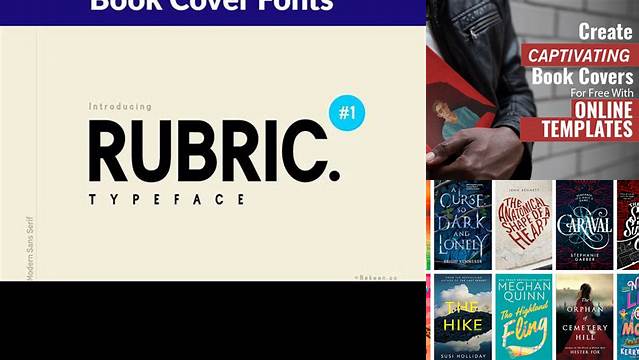
Best Fonts For Captivating Book Cover Designs
Hey everyone! Let's dive into the awesome world of book cover design, specifically, the crucial role of fonts. Choosing the right fonts can seriously make or break your book's first impression. Think about it: your cover is the handshake, the first thing potential readers see. And just like a firm handshake exudes confidence, the right font combo can scream 'read me!' In this article, we're gonna explore the best fonts to make your book cover stand out and attract readers. We'll look at different styles, from classic serifs to bold sans-serifs, and even some quirky options to fit any genre. We'll also discuss how to pair them effectively to create a visually appealing and memorable cover that grabs attention, driving readers to pick up your book! Trust me, getting the fonts right is an art form, and we're here to make you a font master. So, buckle up, and let's get started!
H2: Choosing the Right Font Styles: A Guide for Book Covers
Alright, guys, let's get down to the nitty-gritty of picking the perfect font styles for your book cover. This is where the magic happens! The first thing you need to do is understand the different font families. You have serif fonts, which have those little strokes or 'serifs' at the ends of the letters, and sans-serif fonts, which are clean and don't have those strokes. Then there are script fonts, which mimic handwriting, and display fonts, which are typically bolder and more stylized, perfect for grabbing attention. Each style evokes a different feeling and is suitable for various genres. For instance, a classic thriller might benefit from a strong serif font, while a contemporary romance might call for a more elegant script. Sci-fi and fantasy often use bolder sans-serif or unique display fonts. When selecting, consider your genre's established visual conventions. Research the covers of bestsellers in your category to understand what works. What fonts are commonly used? What message are they trying to convey? Don't be afraid to step outside the box, but always make sure your font choices align with your book's content and target audience. It is also important to take the time to test different font combinations to see how they look together. Some fonts complement each other, while others clash, so careful selection is key. Be sure to examine the spacing between letters (kerning) and the lines (leading). The layout, too, is very essential in choosing fonts because a cluttered layout can detract from an otherwise beautiful font. Think about the hierarchy of information on your cover. The title should be the most prominent element, followed by the author's name and any secondary information. Use size, weight, and color to create this visual hierarchy. Finally, guys, the goal is to find fonts that perfectly capture the essence of your book! This includes choosing a good font style, so that it can represent your content well.
H3: Serif Fonts: Timeless Elegance and Authority
Let's talk about serif fonts. These are the OGs of the font world, and they're still incredibly popular on book covers. You've probably seen them everywhere, from classic novels to academic textbooks. The little 'feet' or strokes at the end of the letters give serif fonts a sense of history, tradition, and, depending on the specific design, authority. Think of fonts like Times New Roman, Garamond, and Bookman Old Style. They're the reliable, trustworthy choices. Why choose a serif for your cover? Well, for genres like historical fiction, literary fiction, and serious non-fiction, a serif can lend instant credibility and sophistication. They can also give the impression of a 'classic' or 'timeless' story. The key is selecting the right serif. Some are more ornate and elegant, while others are clean and modern. Consider the mood you're trying to create. A traditional romance, for example, might use a flowing serif, while a hard-hitting biography might use a more robust one. Make sure the font is readable, even at a small size. Remember, your cover needs to look good when it's shrunk down for online stores. Be mindful of the font's weight (boldness) and size to ensure that it's easily seen from a distance. Avoid using too many different serif fonts on your cover, as this can create a cluttered and confusing appearance. If you're using a serif font for the title, consider pairing it with a clean sans-serif for your author's name or a subtitle for a modern feel. Experiment with different combinations to see what works best for your book and font style! Using a serif font provides credibility. Your goal should always be to create a good impression!
H3: Sans-Serif Fonts: Modernity and Versatility
Next up are sans-serif fonts! These are the cool kids on the block, known for their clean, modern look. Sans-serif fonts lack the small strokes, making them appear sleek and contemporary. Think of fonts like Helvetica, Arial, and Futura. They’re incredibly versatile and can work well in various genres, from science fiction and thrillers to young adult and contemporary fiction. Why choose a sans-serif for your book cover? They exude a sense of clarity, simplicity, and modernity. They're easy to read, especially at smaller sizes, making them ideal for covers that need to be eye-catching on a small screen. Sans-serif fonts work perfectly for genres that want to appeal to a younger audience or convey a sense of forward-thinking. When choosing a sans-serif font, consider the specific style. Some are geometric, like Futura, which gives a strong, minimalist feel. Others, like Open Sans, are more humanist and have a softer edge. Match the font style to your book's tone and content. A sci-fi novel might benefit from a bold, futuristic sans-serif, while a contemporary novel might use a clean, elegant one. You have to consider the font's weight and size. Also, sans-serif fonts tend to be highly readable, even in a condensed version. A clean layout is key when using a sans-serif font. You want the font to stand out without feeling cluttered. Be sure to balance the elements of the cover, using whitespace effectively. With these things in mind, you’ll be able to come up with a good font combination!
H2: Pairing Fonts for a Harmonious Design
Now, let's talk about the art of font pairing. Choosing two or three fonts that work well together is crucial for a professional-looking cover. It's like creating a perfect outfit – you want everything to complement each other, not clash. Think about contrast, readability, and overall aesthetic. The goal is to create visual interest while ensuring that your cover looks unified and easy on the eye. One of the most common and effective pairings is to use a serif font for the title and a sans-serif for the author's name or subtitle. This creates a balance between classic and modern, drawing the reader's eye. Be sure not to use two fonts that are too similar, as this can make your cover look bland. Instead, find fonts that offer a clear distinction in style, weight, or size. Complementary fonts can be of different fonts styles, such as sans-serif and serif fonts. Also, you can explore the weights of the fonts. Play with different weights and sizes to create visual interest. Always prioritize readability. Make sure the title and author's name are easy to read, even at a small size. A combination of bold and light fonts can be helpful. Remember, consistency is key. Stick to a specific font style throughout your cover, including the spine and back cover, to create a cohesive brand. Experiment with different combinations to see what works best for your book and genre. Test your design by viewing it on a variety of devices and in different sizes. This will help you identify any issues with readability or overall impact. Always focus on the essence of your content and make sure you are conveying the right message!
H3: Contrasting Font Styles: The Art of Combining
So, guys, let's explore the art of contrasting font styles on your book cover. The key to a successful cover is finding fonts that complement each other while creating visual interest. Contrasting fonts doesn't mean picking two completely different styles. Instead, think about how the different fonts can play off of each other. One classic approach is to pair a bold, attention-grabbing font for the title with a more subdued font for the author's name or subtitle. This creates a visual hierarchy, making the title the focal point. Another effective technique is to use a serif font for the title and a sans-serif font for secondary text. This creates a beautiful balance between traditional and modern aesthetics. When pairing fonts, consider their individual characteristics. Look at the font's weight, style, and overall impression. A heavy, bold font can contrast nicely with a lighter, more delicate font. Be sure to consider the different styles and categories as well. Choose fonts that have distinct features. Avoid combining fonts that are too similar. This can make your design appear monotonous and uninspired. Contrast can also be achieved by playing with font sizes. Use a large, eye-catching title and a smaller, more subtle author's name. Always keep readability in mind. Your font pairings should be easy to read, even at a small size. In addition to your fonts, you should also use contrast to enhance your design. Try different colors! So, with all that in mind, you'll be able to achieve a great font style and create a good impression.
H3: Font Combinations: Finding the Perfect Match
Let's dive into the world of font combinations! Guys, finding the perfect font match for your book cover is like finding your perfect pair of shoes. It can take time and experimentation, but when you find the right one, it just clicks! The most important aspect is to choose fonts that are different but not too similar. A popular approach is to pair a serif font with a sans-serif font. This contrast provides a balance between classic and modern, creating a visually appealing design. Consider the font's weight and style, which is essential. Also, a bold font can be used for your title, while a more delicate font can be used for your author's name. This technique creates a visual hierarchy, drawing the reader's attention to the most important element. If you are unsure about how to combine, consider using a single font family. A single font family will have variations in weight, style, and size. In addition, always ensure that your font choices are readable. Even if you love a particular font, it's no good if people can't easily decipher the text. Consider your genre when making your decisions. Research the covers of other books in your genre and see what fonts are commonly used. Use this as inspiration but don't be afraid to step outside the box. A good tip is to test your font pairings on a variety of devices and in different sizes to ensure they look their best. Finally, the goal is to create a cohesive design that reflects the essence of your book. So, experiment, and be ready to make a good impression! With these things in mind, you’ll be able to create a perfect match of fonts and increase the value of your book!
H2: Typography Tips: Mastering the Art of Font Usage
Alright, guys, let's elevate our font game with some typography tips. Mastering typography is about more than just picking pretty fonts; it's about using them effectively to create a visually stunning and easily readable cover. Here are some tips to help you become a font pro! First up, let’s talk about hierarchy. The most important text on your cover – usually the title – should be the most prominent. Use size, weight, and color to create a clear visual hierarchy, guiding the reader's eye. Kerning and leading are also very important. Kerning is the space between individual letters. It should be adjusted to ensure even spacing and readability. Leading, or line spacing, is the space between lines of text. Appropriate leading prevents text from appearing cramped and difficult to read. Also, be sure to stick to a consistent font style. Choose one or two fonts for your cover and use them consistently throughout the design, including the spine and back cover. This creates a cohesive and professional look. Consider the color. Font color can have a huge impact on readability and visual appeal. Ensure your font color contrasts well with the background. Test your design on different backgrounds to see if the color looks good in different ways. Always prioritize readability, especially on smaller screens. Your text should be easy to read, even when the cover is viewed at a small size. Always test your designs to ensure that the layout of your text looks good. Avoid cluttering your design with too much text or graphics. A clean, simple design is often more effective at grabbing attention. With this in mind, you’ll be able to create a good and visually stunning font and cover!
H3: Font Size and Weight: Creating Visual Hierarchy
Let's talk about font size and weight, two powerful tools in your design arsenal. Guys, when you master these, you can create a cover that not only looks stunning but also guides the reader's eye. The first rule: size matters! The title should be the most prominent element on your cover, so give it a larger font size. Follow this with the author's name and any subtitle. Ensure there's a clear visual hierarchy. This hierarchy guides the reader's attention. Weight is just as important as size. Bold fonts are great for grabbing attention, so use them for your title or key text. Lighter weights can be used for secondary text, adding contrast and visual interest. This balance can help you to get the right font style and cover. It is also very important to consider the font style. Different fonts have different weights. A bold font might be a heavy sans-serif, while a light font might be a delicate script. Also, you have to experiment with different sizes and weights to see what looks best. In addition, consider the genre of your book. Thrillers and action novels often use bold fonts, while romances might opt for a more elegant approach. The key is to make sure that the text is easy to read, even at a small size. Always test your designs on different devices. With these tips in mind, you'll be able to create the perfect font and create a great impression!
H3: Readability and Legibility: Making Your Fonts Work
Next, we'll explore the crucial concepts of readability and legibility, guys. It's not enough for your fonts to look good; they need to be easy to read and understand. Your book cover's success hinges on this. Readability is about how easy it is to read a block of text. Fonts with good readability are usually simple and clean, while more complex, decorative fonts can be harder to read, especially at smaller sizes. Legibility refers to how easily individual letters can be identified. Fonts with poor legibility might have confusing letterforms. The goal is to strike a balance between aesthetics and functionality. Choose fonts that are both attractive and easy to read. A good tip is to use fonts that have been specifically designed for reading, such as those found in many books. Consider the background. The color of your font should contrast well with the background. Dark fonts look great on light backgrounds, and vice versa. This contrast makes it easy for the reader to see the text. Choose a font that is suitable for your target audience. Children's books, for example, might benefit from a more playful font, while a business book would probably use a more professional one. Always test your designs to see how they look at various sizes. This ensures the text is readable, even when the cover is viewed on a mobile device. With all these factors in mind, you'll create readable and legible fonts for your cover and create a stunning appearance!
H3: White Space and Layout: Optimizing Font Placement
Let's talk about white space and layout, guys! These elements are as essential as the fonts themselves in creating a visually stunning book cover. White space, often called negative space, is the empty area around your text and images. It helps to prevent your design from appearing cluttered and can significantly improve readability. A well-designed cover will have enough white space to prevent elements from appearing cramped and overwhelming. Layout refers to how you arrange the text and images on your cover. A clear layout guides the reader's eye. Use a grid to organize your elements. This will help you maintain consistency and balance. A good layout will make sure your title and author's name are easy to read, and that the reader's eye naturally flows across the design. A good tip is to create a focal point by placing the title in the most prominent position. Use a larger font size and bold weight to draw attention. Then, use fonts that are easy to read. Don't clutter your design with too many elements. A minimalist approach often works best. In addition, always make sure your text contrasts well with the background. This ensures that your text is easy to read. Also, test your designs on different devices and in different sizes. Adjust as needed to ensure that the layout looks good in any circumstances. With all these considerations in mind, you’ll create a layout that compliments the fonts and design, and enhance the value of your book!
H2: Font Selection for Different Genres
Now, let's get genre-specific! Guys, different genres have different visual conventions, and choosing the right fonts is key to capturing the essence of your book and attracting the right readers. Genre-specific fonts will speak to the audience and attract them to read. This is the magic of fonts!
H3: Romance: Elegant, Script, and Playful Fonts
For the romance genre, guys, think elegance, romance, and a touch of playfulness. Script fonts are incredibly popular for romance covers. They evoke a sense of handwriting, which can feel intimate and personal. Consider fonts like Great Vibes, or Allura for your title. To achieve a great impression, you should also pair a script font with a clean sans-serif font for the author's name. This provides a contrast and improves readability. Also, many romance covers feature playful fonts with unique flourishes or decorative elements. Use these fonts with caution. Make sure they don't make your cover look too cluttered. Always test your design to ensure it's easy to read and looks good. Also, consider the story's tone. A historical romance might call for a more formal script, while a contemporary romance might use a more modern font. Finally, stick to a consistent font style. Use the same fonts throughout your cover to create a cohesive brand. Always prioritize readability. Make sure the title and author's name are easy to read. With all these things in mind, you'll achieve the best outcome and enhance the value of your book!
H3: Thriller/Mystery: Bold, Mysterious, and Dramatic Fonts
For thrillers and mysteries, we're going for suspense, intrigue, and a sense of danger, guys. Bold fonts work well here. Choose fonts with strong personalities, like impact, or Bebas Neue. These instantly grab attention. Consider a font that suggests mystery and suspense. Some fonts have unique letterforms that can suggest something ominous. Pair a bold font for the title with a clean sans-serif for the author's name to create a good contrast and improve readability. Also, the color can provide an impression. Experiment with color palettes that evoke a sense of mystery and danger, such as dark reds, blacks, and deep blues. Always ensure that the text is readable, especially at a small size. In addition, you should always test your design on different devices and in different sizes. Always stick to a consistent font style and use the same fonts throughout your cover to create a cohesive brand. With these things in mind, you’ll be able to create the perfect font and enhance your content.
H3: Science Fiction/Fantasy: Futuristic, Bold, and Unique Fonts
Science fiction and fantasy covers often benefit from fonts that are futuristic, bold, and unique, guys. This genre gives you a chance to get creative with your font choices. Consider fonts that have a futuristic feel. Look for clean, geometric sans-serif fonts or those with unique letterforms. Bolder fonts are also a great option. These will grab the reader's attention and convey a sense of excitement. Do some research. Check out the covers of popular science fiction and fantasy books and take note of the fonts they use. This can give you ideas. Try to choose a font that matches the tone of your story. Pair a strong title font with a clean, readable sans-serif font for the author's name. Also, you should create a good layout to make sure that your fonts work well. Don't clutter your design with too much text or graphics. Always test your designs to ensure that they look great on any device. Always use the same font style to create a consistent brand. With these elements in mind, you'll create a fantastic font for your cover, and increase the value of your book!
H3: Young Adult: Playful, Modern, and Engaging Fonts
Guys, for the young adult genre, think playful, modern, and engaging. This is a genre that often uses fonts that reflect the energy and vibrancy of its target audience. Font selection is essential to get the reader's attention. Consider the type of fonts that are popular in your niche. Always explore modern sans-serif fonts that are clean and easy to read. Bold, eye-catching fonts will grab the reader's attention. Pair a dynamic title font with a more readable font for the author's name to create balance and contrast. Also, ensure that the font style fits the tone of your story. Always prioritize readability. The text should be easy to read, especially at a small size. Ensure the font is appropriate for the content. Avoid fonts that are too formal or serious. Instead, use fonts that are casual and fun. With all of these things in mind, you’ll be able to create an effective font style and book cover!
H2: Tools and Resources for Font Selection
Alright, guys, let's talk about the tools and resources you can use to find the perfect fonts and design your book cover. There are many useful resources to make it easier for you. Finding and using the right tools and resources is essential for the best fonts.
H3: Font Pairing Websites: Finding the Perfect Combination
Okay, guys, let's talk about websites dedicated to font pairing. These are like online matchmakers for your fonts, helping you find the perfect combinations to create a visually stunning book cover. These sites allow you to enter a font and then generate a good combination! Many tools let you see how your fonts would look in actual use. The websites provide recommendations that can be incredibly helpful, especially if you're new to design. If you are in a hurry and need to find something quickly, these sites are a perfect choice. These sites also allow you to download the fonts. They may even provide a license to use those fonts. Many sites offer additional resources. You can even check the comments section for advice and inspiration. You can also discover what fonts other designers are using. With all this in mind, finding the right font will be very easy!
H3: Font Identification Tools: Discovering the Unseen
Sometimes you'll see a font you love on a book cover, guys, but you have no idea what it is! That's where font identification tools come in handy. They're like detectives for your fonts, helping you uncover their names. Here's how they work: you upload an image of the font or paste the URL of the image, and the tool tries to identify it. It's almost like magic! Most tools work by analyzing the letterforms and comparing them to a vast database of fonts. Some tools are available as online websites, while others are available as mobile apps. If you're working with a design, you can also upload the image to various online tools to identify the fonts. Also, many font identification tools are free to use. These tools can be a valuable resource for your design. They can inspire your creative process. It's very essential to recognize the fonts used and incorporate them into your project. You can now use the font style and create a great impression!
H3: Free Font Resources: Where to Find Great Fonts for Free
Let's talk about free fonts, guys. You don't always have to spend a fortune to get great fonts for your book cover. There are many websites that offer high-quality fonts at no cost. These resources are perfect for indie authors and anyone on a budget. Always check the font's licensing before using it, as some fonts are only free for personal use. You will find everything from classic serifs to modern sans-serifs, so you can explore all the options available. Many of these websites offer fonts from independent designers. This is an excellent way to support emerging artists. Also, always ensure that the fonts are easy to read. The last thing you want is to use a font that is difficult to decipher. When you download a font, be sure to install it correctly. Most websites also offer excellent design ideas. You can easily find inspiration from other designers. You can use the fonts and create a good impression!
H2: Avoiding Common Font Mistakes
Alright, guys, let's discuss some common font mistakes that you should avoid when designing your book cover. By knowing these pitfalls, you can avoid making costly design errors. Avoiding these mistakes will make your book cover look professional.
H3: Overusing Fonts: Keeping it Simple and Effective
One of the biggest mistakes guys make is overusing fonts. It's tempting to use a bunch of different fonts on your cover, but this can make it look cluttered and unprofessional. Instead, stick to one or two fonts at most. This creates a sense of unity and cohesion. Also, too many fonts can distract the reader. Keep it simple. Prioritize readability and clarity. In addition, when you use multiple fonts, make sure they complement each other. Avoid fonts that clash or compete for attention. Also, make sure you are sticking to the same font style throughout your cover. You'll be able to create an effective, professional cover. So, be careful about how you choose the fonts, and create an effective cover!
H3: Poor Readability: Ensuring Your Text is Clear
Next up, let's talk about readability, guys. This is super important. Your cover is useless if the text is not easy to read. People should be able to see your fonts very easily. Make sure that the font you use is appropriate for your genre. Choose fonts that are clear, especially at smaller sizes. Also, ensure that your font color contrasts well with the background. Dark fonts look good on light backgrounds, and vice versa. Also, consider the background of your book cover. Test your design on different backgrounds. Also, ensure that your title and author's name are prominent. This will create a good impression and the reader will feel more attracted to the book. By keeping these things in mind, you'll be able to create an effective font and cover!
H3: Bad Kerning and Leading: Fine-Tuning Your Typography
Finally, let's discuss bad kerning and leading, guys. These are subtle details, but they can make a big difference in your design. Kerning is the space between individual letters. If the kerning is bad, some letters might be too close together, while others are too far apart. To solve this problem, you can always adjust the spacing to ensure your fonts look evenly spaced. Leading is the space between lines of text. Insufficient leading can make your text appear cramped. Always increase the leading to make your text more readable. In addition, you should always fine-tune your typography and make sure that it looks professional. Ensure that your text is easy to read. By addressing these details, you can significantly improve the overall appearance and readability of your book cover. The goal is to make your cover look professional. Your readers will appreciate a book cover that is polished and easy to read. By keeping these things in mind, you’ll be able to create a great font and increase the value of your book!
H2: Conclusion: Crafting Captivating Covers with the Right Fonts
And there you have it, guys! We've covered everything from serif fonts to sans-serifs, genre-specific fonts, and tools to help you create a great book cover. Remember, choosing the right fonts is a crucial part of your book cover. The best fonts will provide value and increase the impression of your book.
H3: Recap of Key Takeaways
Let's recap some of the key takeaways, guys. We've explored the importance of font styles, and how different styles evoke different feelings. Remember, the font style is very essential. Also, you should understand font pairing. Choosing two or three fonts that work well together is crucial. In addition, you should focus on the art of typography. Also, you should use tools and resources to assist you in your design process. It is very essential to avoid common font mistakes. This includes overusing fonts and poor readability. With all these elements, you'll be able to create a great font and design.
H3: Encouragement to Experiment and Create
Guys, now it's your turn to experiment and create! Don't be afraid to step outside of your comfort zone and try different fonts. Playing with different fonts will get you a great result. Research the covers of books in your genre, but also draw inspiration from other areas. Your font style will create a good impression. It is very essential to create a good font combination. Most importantly, have fun with the process. Book cover design should be an enjoyable experience. By experimenting with the elements, you’ll be able to create an effective font! So, get out there and make your book cover a masterpiece!
H3: Final Thoughts and Best Wishes